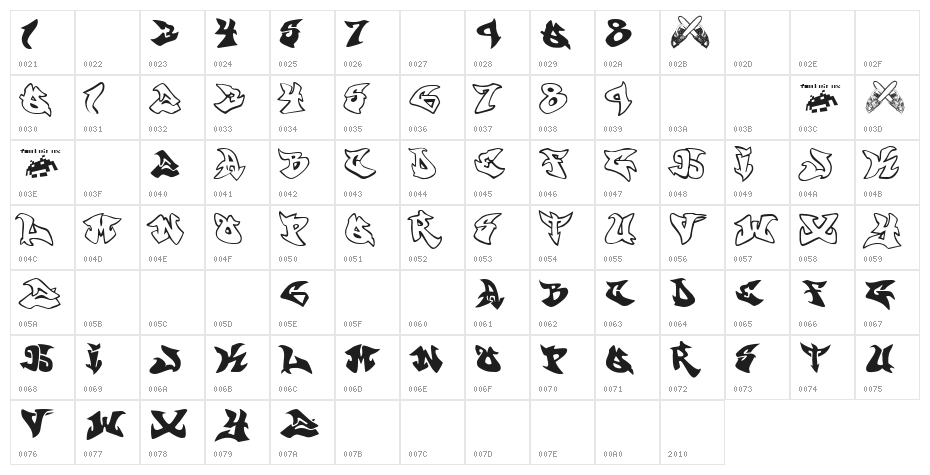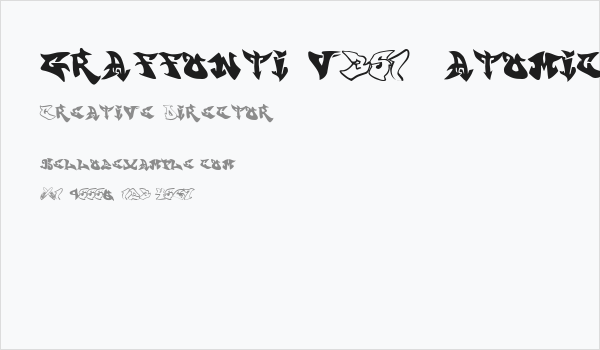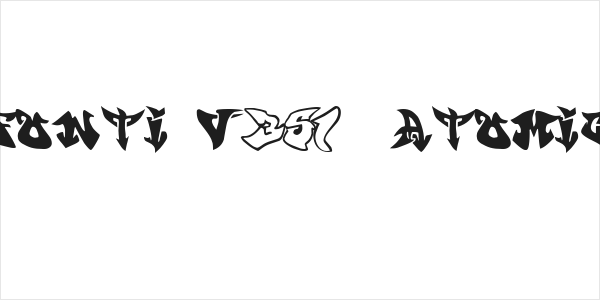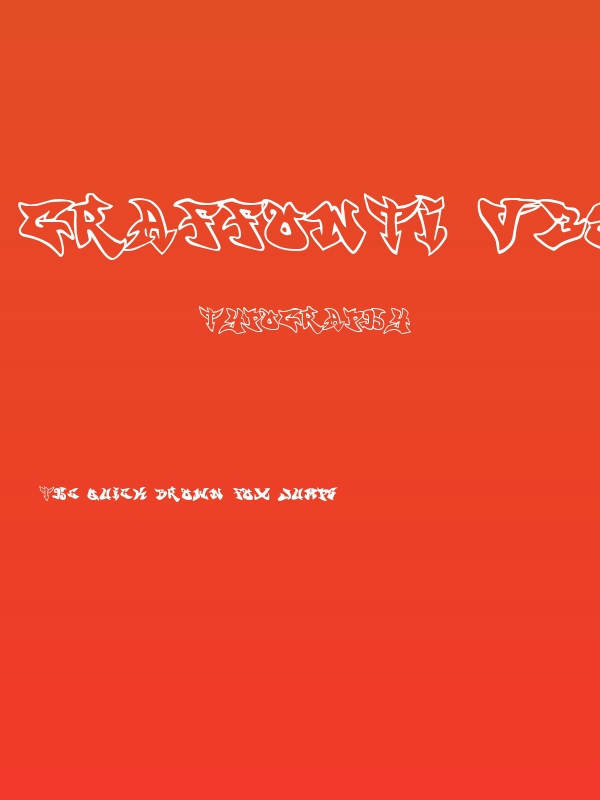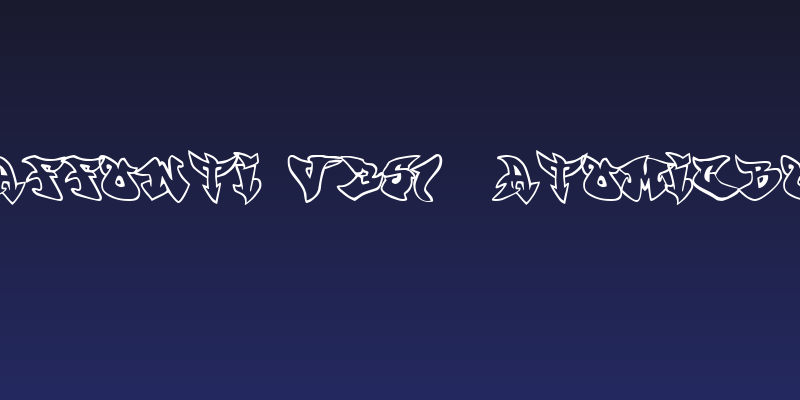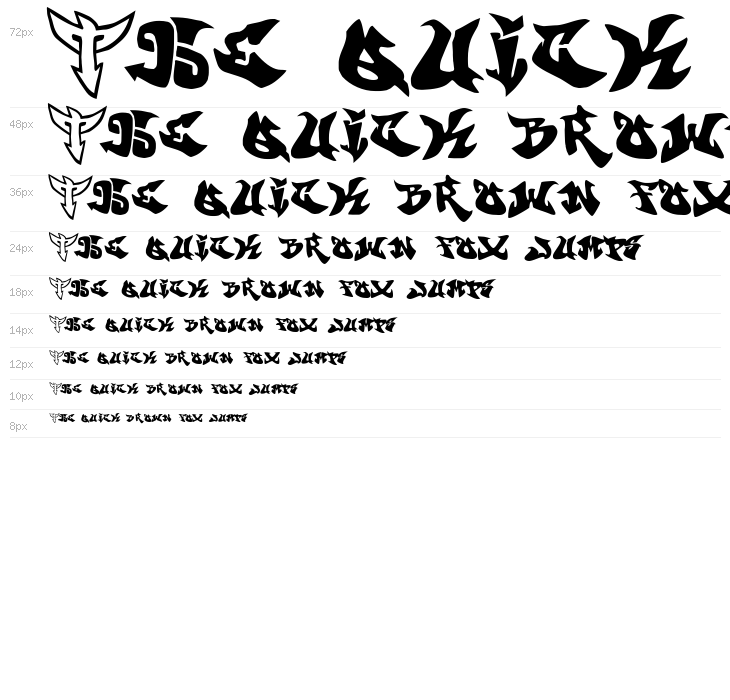
graffonti v351 atomicbomb Font
graffonti v351 atomicbomb Description
This font features a bold, graffiti-inspired style with sharp, angular edges and a dynamic, energetic appearance. The characters are highly stylized, with exaggerated curves and points that give a sense of movement and urban flair. The uppercase and lowercase letters maintain a consistent aesthetic, while the numbers and special characters integrate seamlessly into the overall design. This font is perfect for projects that require a strong, rebellious, and artistic touch, such as street art, music album covers, or edgy branding materials.
| Overall Style | Urban, Rebellious, Artistic |
| Use Case | Logos, Posters, Headlines |
| Proposed Projects | Ideal for street art, music album covers, edgy branding, and urban-themed designs. |